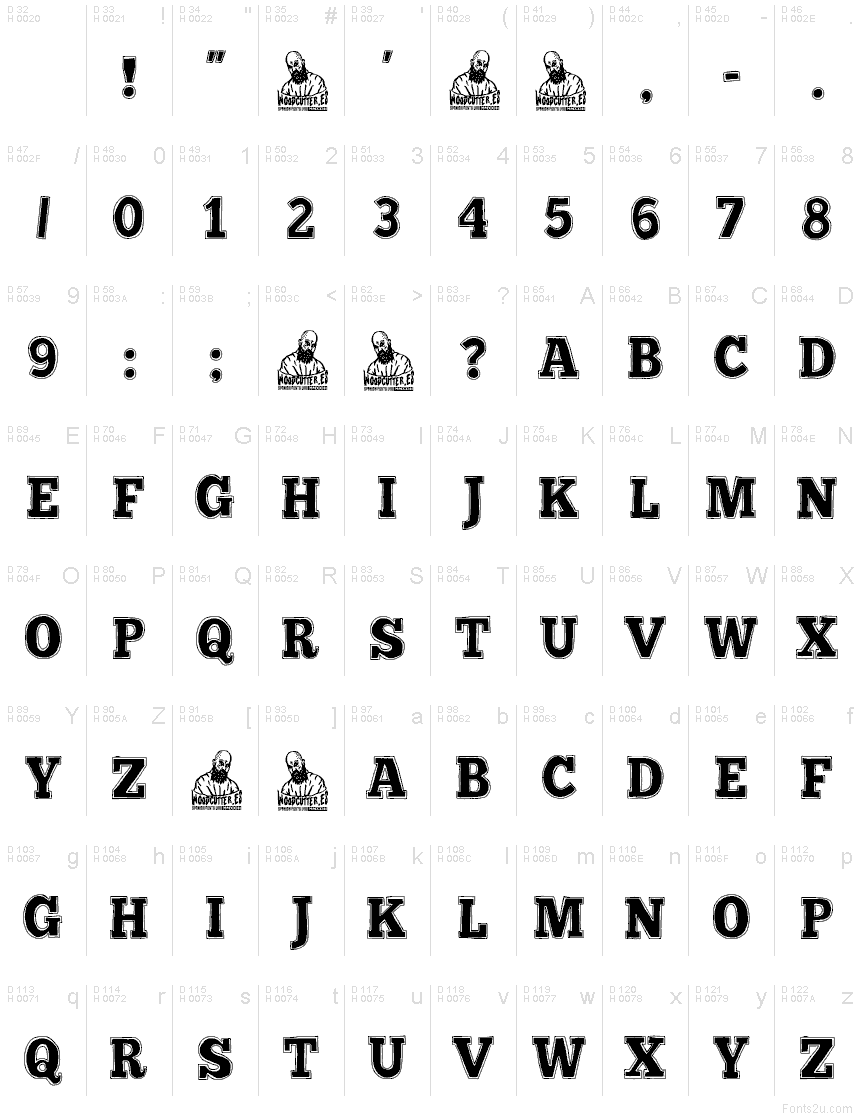
Retro Boulevard
Retro Boulevard font by Woodcutter is a free bold old-school display font. It stands out with engraved inline detailing and a double-outline frame that feels like hand-inked wood type—crisp edges, deep shadows, and a hint of street-sign grit. The tall, sturdy letterforms keep lines clean even when stacked tight, so headlines hit hard without turning clumsy.
Using Retro Boulevard, you get instant poster presence for vintage event flyers, bar menus, whiskey labels, apparel graphics, storefront signage, and retro album covers. The rhythmic inlines add dimension that reads from a distance yet rewards up-close looks. For balance, pair this free font with a neutral grotesque sans in small text, and size the display big to let the carved contours breathe.
Retro Boulevard.